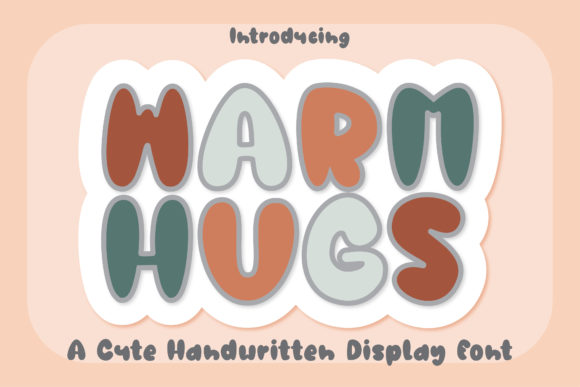
In an era where individuality and authenticity thrive, allow us to introduce you to Warm Hugs Font - where charm and versatility meet. This delightful display font, crafted with meticulous care by GoodMoodType, is a treasure trove of artistic expression, brimming with personality and endless possibilities.
With its soft curves and delicate edges, Warm Hugs Font dances across your screen, captivating the hearts of all who behold its whimsical embrace. It is a true chameleon, effortlessly blending with various design aesthetics, from rustic and vintage to modern and sleek. Its natural and unique style transforms ordinary words into captivating statements, enchanting your audience with its undeniable charisma.
Born from the desire to add joy and warmth to your creative endeavors, Warm Hugs Font invites you on a journey of imagination and playful exploration. Whether you're crafting wedding invitations that exude an air of elegance, designing thank you cards that radiate gratitude, or creating logos that pop with personality, this font is your trusted companion. Its versatility extends from greeting cards that spark smiles to business cards that leave a lasting impression, ensuring you stand out from the crowd.
Step into a world where your designs come alive with a touch of whimsy, where each letter dances and twirls, contributing to a symphony of visual delight. Warm Hugs Font is not merely a collection of characters; it's an invitation to let your creativity soar, to embrace the magic of self-expression, and to leave an imprint on the hearts of those who experience your creations.
From the first glimpse, Warm Hugs Font casts a spell, drawing you into its enchanting world of visual storytelling. Its every curve, every stroke, is meticulously crafted to evoke emotions, to spark conversations, and to leave an unforgettable impression. Indulge in the endless variations this font offers, allowing your imagination to run wild as you create designs that resonate with your unique style.
Whether you're a seasoned designer or just starting your creative journey, Warm Hugs Font is your secret weapon, your gateway to creating designs that captivate and inspire. Its user-friendly nature and seamless integration with various software make it a dream to work with, ensuring a smooth and enjoyable experience.
Embrace the transformative power of Warm Hugs Font and unlock the full potential of your creativity. Let your designs shine with a touch of magic, a sprinkle of delight, and a whole lot of love. Dive into the world of Warm Hugs Font today and let your imagination run wild!